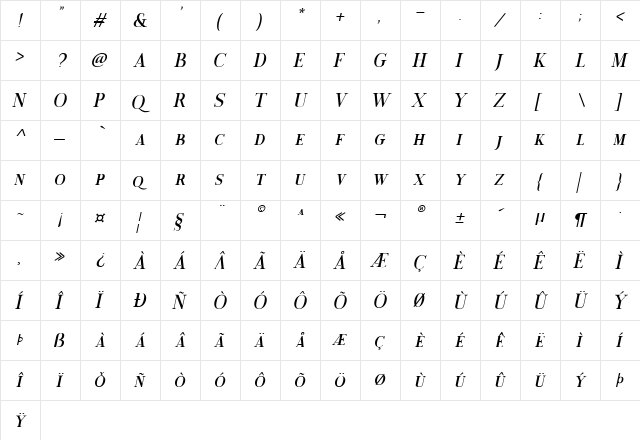
Chrono Italic
Design Context for Chrono Typeface
Chrono takes a measured approach to typography — its balanced proportions and neutral character make it a reliable workhorse for both digital and print work. The dynamic lean of this cut emphasises speed and emphasis in any layout.
Pro Tip: Try Chrono for annotation and caption copy alongside an upright companion — the contrast in angle creates a dynamic but ordered typographic system.